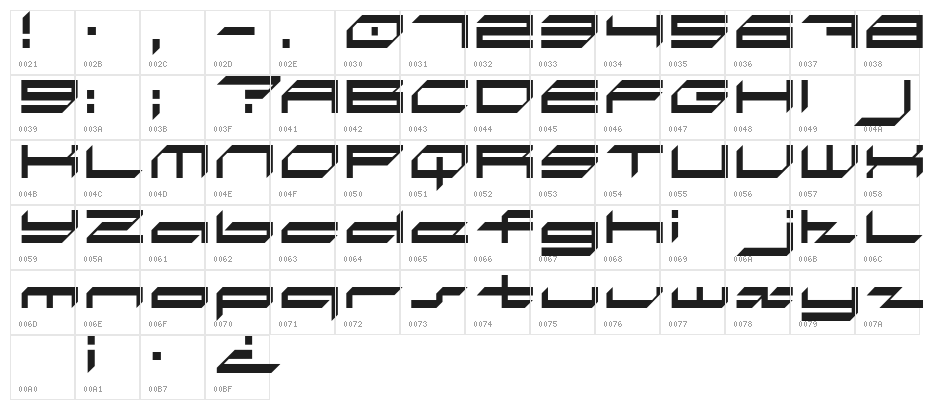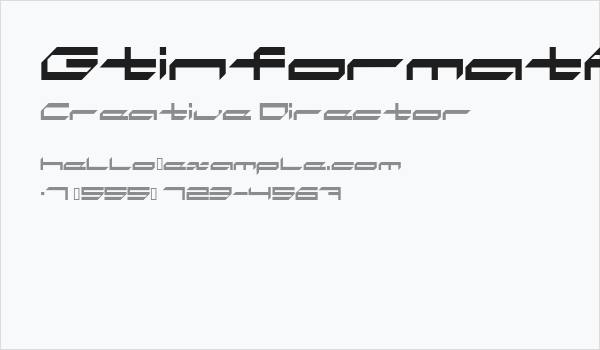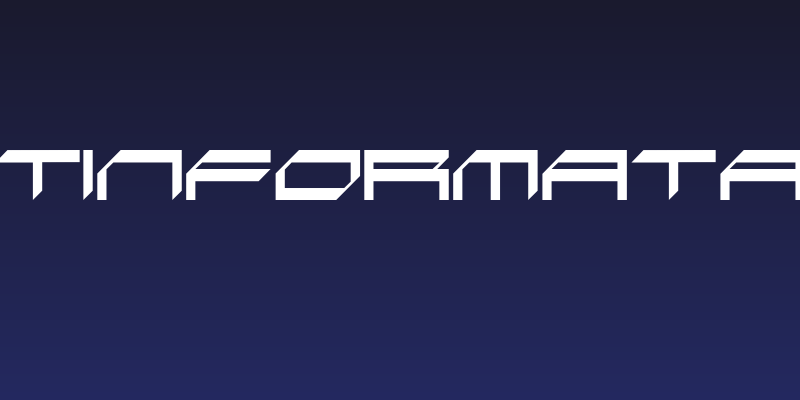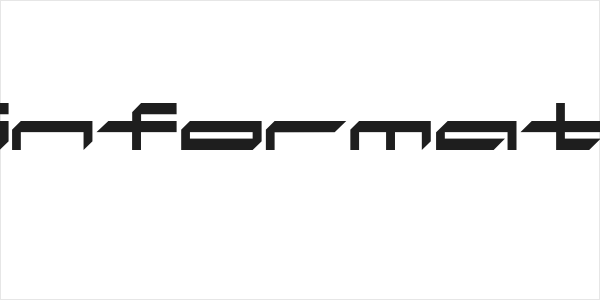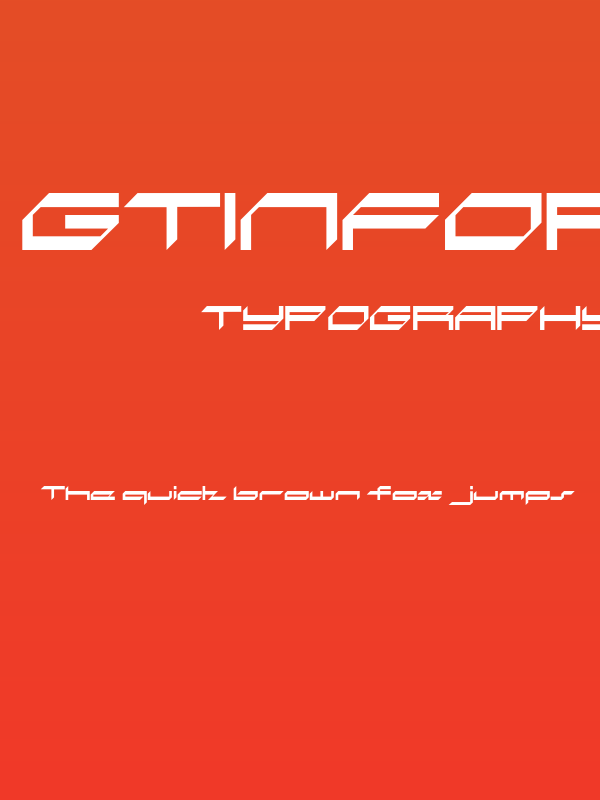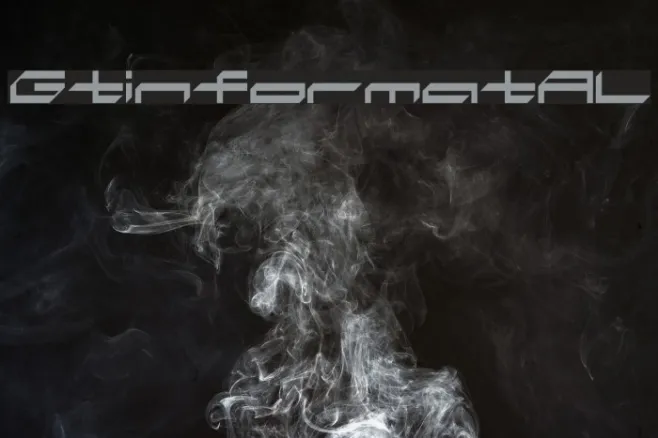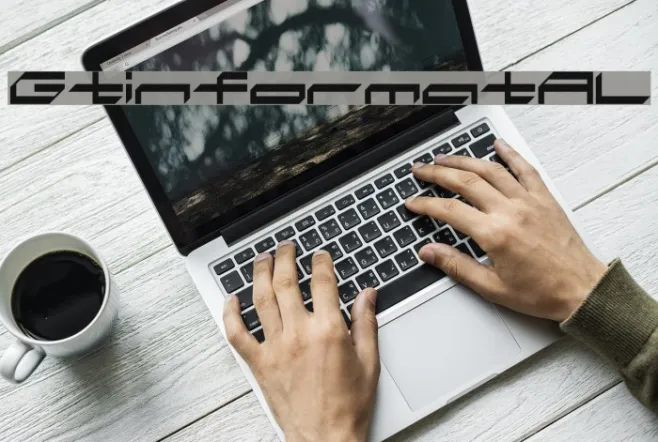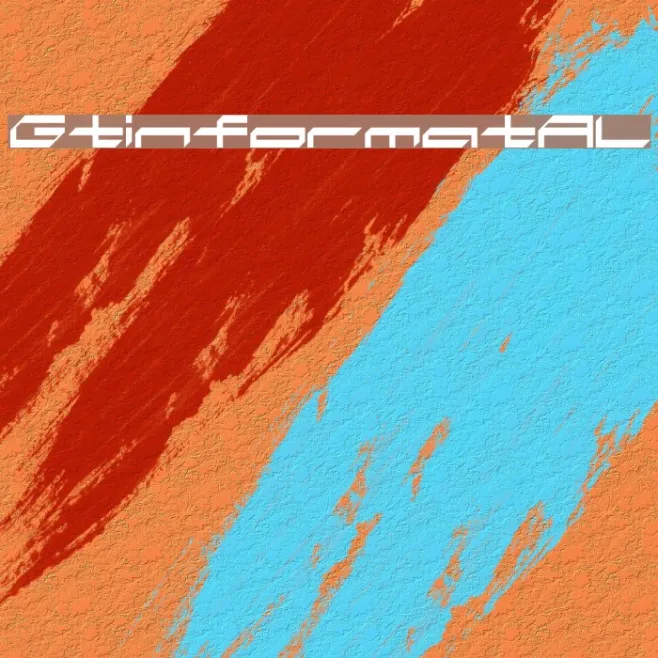
GtinformatAL Font
GtinformatAL Description
This font features a futuristic and angular design, characterized by sharp edges and geometric shapes. The uppercase letters are bold and striking, with a distinct sci-fi aesthetic. The lowercase letters maintain the angular theme, providing a cohesive look across the typeface. Numbers and special characters follow the same design principles, ensuring consistency. The overall appearance is modern and dynamic, making it suitable for projects that require a bold and innovative look.